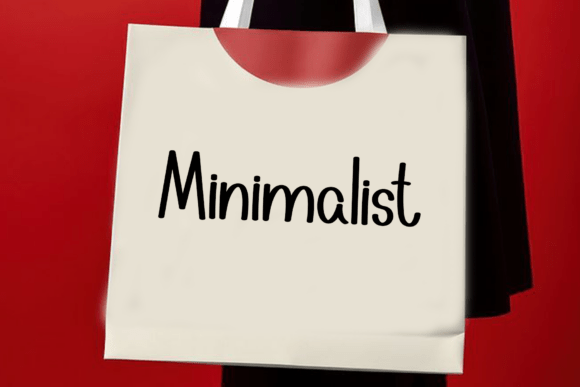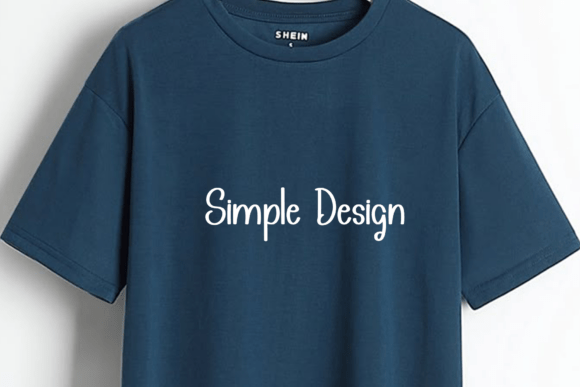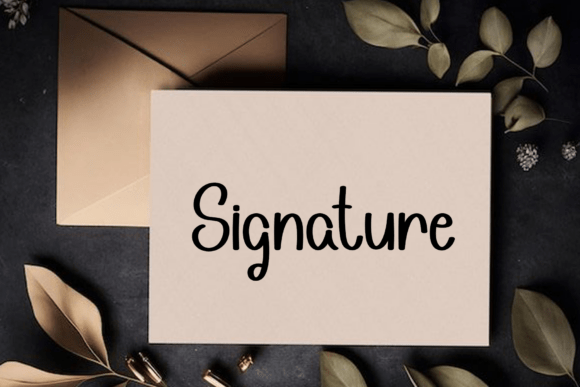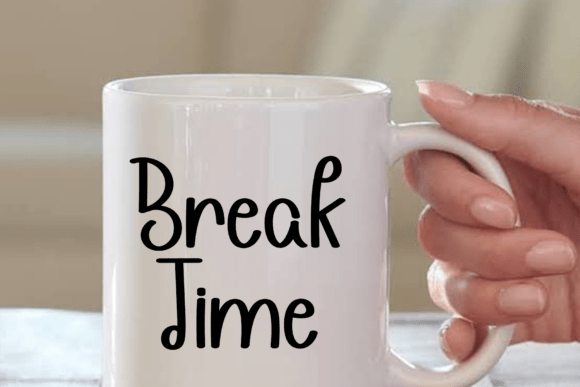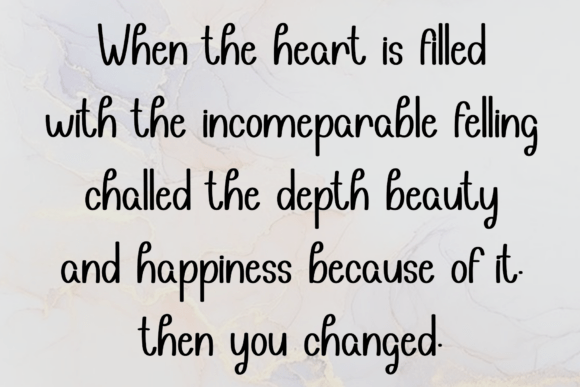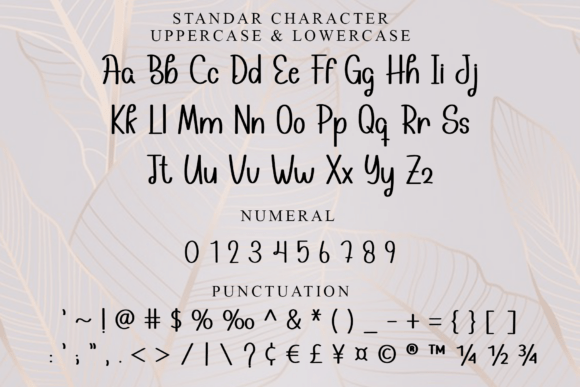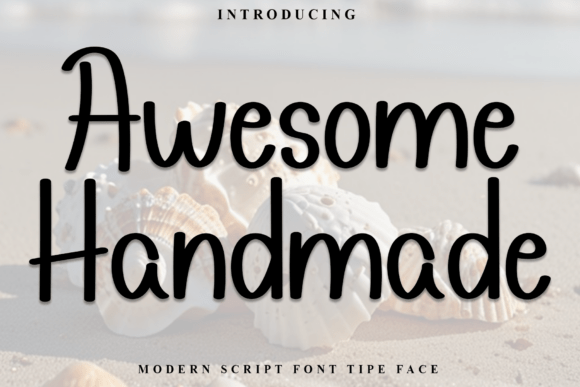
The Magic of Awesome Handmade Font: A Festive Design Essential
It’s the most wonderful time of the year – and I’m not just talking about the holiday season! As a designer, I’ve had my fair share of late nights, scrambling to find the perfect font for a project. I recall one particularly stressful evening, working on a festive greeting card design for a client. My usual go-to fonts just weren’t cutting it – they were either too bland or too over-the-top. That’s when I stumbled upon the Awesome Handmade font, and let me tell you, it was love at first sight! 🎉
I’ve had the pleasure of working with Awesome Handmade font on several projects, and here’s what I think:
- ✨ Festive and merry vibe: This font screams holiday cheer! It’s perfect for creating designs that evoke a sense of nostalgia and warmth.
- 🎨 Versatile: Awesome Handmade font is not just limited to holiday designs. You can use it for various projects, from gift tags to party invitations.
Now, I’m not going to sugarcoat it – there are a few quirks to be aware of:
- 🤔 Limited use outside of holidays: While the font is versatile, its festive vibe might not be suitable for non-holiday projects.
- ⚠️ Some glyphs may require manual adjustment: Depending on the design, you might need to tweak certain glyphs to get the perfect look.
The Story Behind Awesome Handmade Font
Imagine a small, snowy village, where a talented young designer grew up surrounded by the magic of the holiday season. Inspired by the intricate patterns and decorations on vintage holiday cards, this designer created Awesome Handmade font as a way to capture the essence of the season. With its decorative elements and whimsical flair, this font is sure to bring a touch of enchantment to your designs.
| Font Name | Awesome Handmade Font |
| Is Awesome Handmade font suitable for non-holiday projects? | While the font’s festive vibe might not be suitable for all projects, its versatility makes it a great choice for various design applications. |